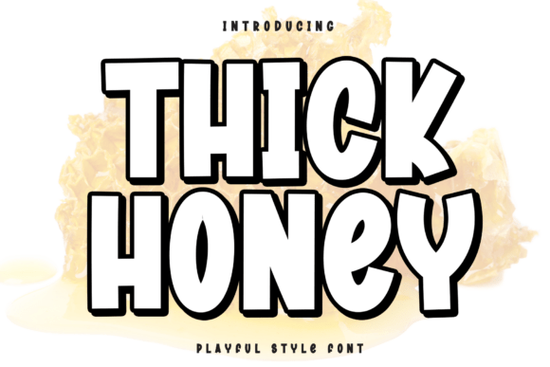
If you're looking for a display font that’s both bold and approachable, Thick Honey might be exactly what your next project needs. This playful typeface blends chunky letterforms with soft, rounded edges and a subtle outline giving it a friendly, slightly retro personality without feeling dated. Whether you’re designing kids’ t-shirts, branding a local ice cream shop, or creating eye-catching posters, Thick Honey delivers presence without losing warmth.
What makes Thick Honey stand out from other bold fonts?
Unlike many heavy display fonts that lean into sharp angles or industrial vibes, Thick Honey feels bouncy and joyful. Its letters have a gentle curve and consistent weight, making them highly legible even at large sizes. The slight outline adds dimension without overwhelming the design ideal for layered graphics or when printing on colored backgrounds.
It’s especially well-suited for projects where you want to convey fun, energy, or nostalgia. Think birthday party invites, snack packaging, classroom decor, or casual apparel. If your brand voice is upbeat and relatable, this font helps communicate that instantly.
How can small businesses and crafters use Thick Honey effectively?
Print-on-demand sellers often need fonts that pop in product mockups while remaining versatile across niches. Thick Honey works beautifully on:
- Kids’ clothing – Pair it with bright colors and whimsical illustrations.
- Food & beverage labels – Especially for honey, baked goods, smoothies, or artisanal snacks.
- Social media graphics – Use it for sale announcements or seasonal promotions that need instant visual impact.
- Handmade signage – From farmers' market chalkboards to café menu boards.
Because it’s a display font, it’s best reserved for headlines, logos, or short phrases not body text. But within those limits, it offers strong creative flexibility.
Fonts similar to Thick Honey (if you’re exploring options)
If you like Thick Honey’s cheerful heaviness but want alternatives with slightly different moods, Creative Fabrica has a few close cousins worth checking out:
- If you prefer a more romantic flair with similar weight, Thick Juliet offers soft curves and elegant terminals.
- For a grittier, street-art-inspired look, Block Retro leans into vintage signage aesthetics.
- Need something even more comic-book playful? Comic Thick amps up the bounce with exaggerated proportions.
- And if you’re creating educational materials, Teacher Outline gives you that hand-drawn classroom charm with clear readability.
Each of these complements Thick Honey depending on your project’s tone whether you’re aiming for sweet, bold, nostalgic, or quirky.
Tips for using Thick Honey without overdoing it
Because of its strong presence, less is often more:
- Avoid pairing it with other bold or decorative fonts. Instead, choose a simple sans-serif (like Montserrat or Open Sans) for supporting text.
- Use generous spacing. The thick strokes benefit from breathing room especially in logos or headlines.
- Test print contrast. The soft outline may disappear on very light or textured backgrounds; preview before finalizing.
- Stick to short phrases. It shines in 1–5 word statements, not paragraphs.
When used thoughtfully, Thick Honey adds personality without sacrificing professionalism making it a reliable go-to for creatives who want their work to feel both confident and kind.
Before you download: Make sure your project aligns with the font’s playful spirit. If you’re designing something formal, minimalist, or corporate, this probably isn’t the right choice. But for anything joyful, handmade, or community-focused? It’s a natural fit.